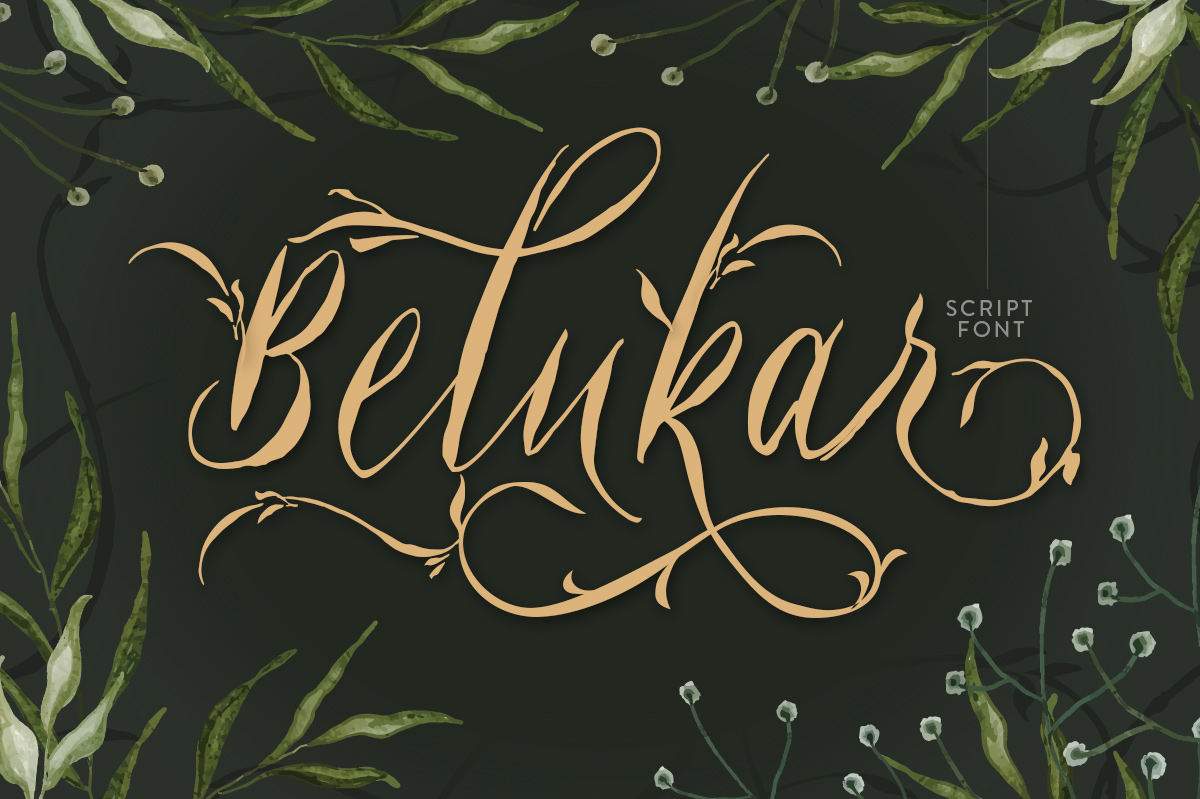
Belukar Font
The Belukar Font is perfect for tropical resort branding, rainforest conservation campaigns, jungle adventure tourism, botanical garden signage, organic eco-products packaging, nature documentary titles, wilderness survival equipment, and environmental education materials. This wild typeface brings untamed natural energy and dense forest mystery to any design project requiring organic authenticity and tropical wilderness appeal.
What makes the Belukar Font so exciting is its remarkable ability to capture the dense, tangled essence of tropical undergrowth through letterforms that seem to grow and intertwine like jungle vines and forest vegetation. The font features organic shapes with natural irregularities, twisted elements, and wild characteristics that evoke the untamed beauty and mysterious depths of pristine rainforest environments.
The Belukar Font family includes light, regular, bold, and dense variations, along with botanical symbols, jungle-inspired ornaments, and organic decorative elements, providing designers with comprehensive tools for creating authentic wilderness brand experiences and naturally inspired design communications that celebrate biodiversity.
Whether you're developing branding for rainforest expeditions, creating materials for conservation organizations, or designing communications for eco-adventure companies, this font delivers wild authenticity. The organically crafted letterforms maintain excellent readability while conveying the untamed spirit and natural complexity that characterizes healthy forest ecosystems and wilderness environments.
Environmental professionals appreciate the font's respectful representation of natural wilderness without romanticizing or oversimplifying complex ecological relationships. The organic design elements create genuine connections with nature while helping brands establish credibility with audiences who value environmental conservation, biodiversity protection, and authentic wilderness experiences.
The Belukar Font excels in applications where environmental authenticity and natural wildness are essential, from eco-tourism marketing to conservation education materials. The font's jungle heritage makes it particularly effective for organizations working to protect and celebrate the world's remaining wilderness areas.